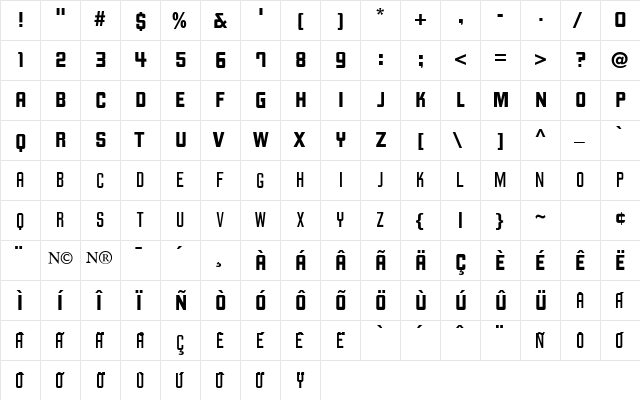
Kraftwerk Regular
Design Context for Kraftwerk Typeface
Kraftwerk is a composed and adaptable typeface that performs quietly and consistently across a wide range of design contexts.